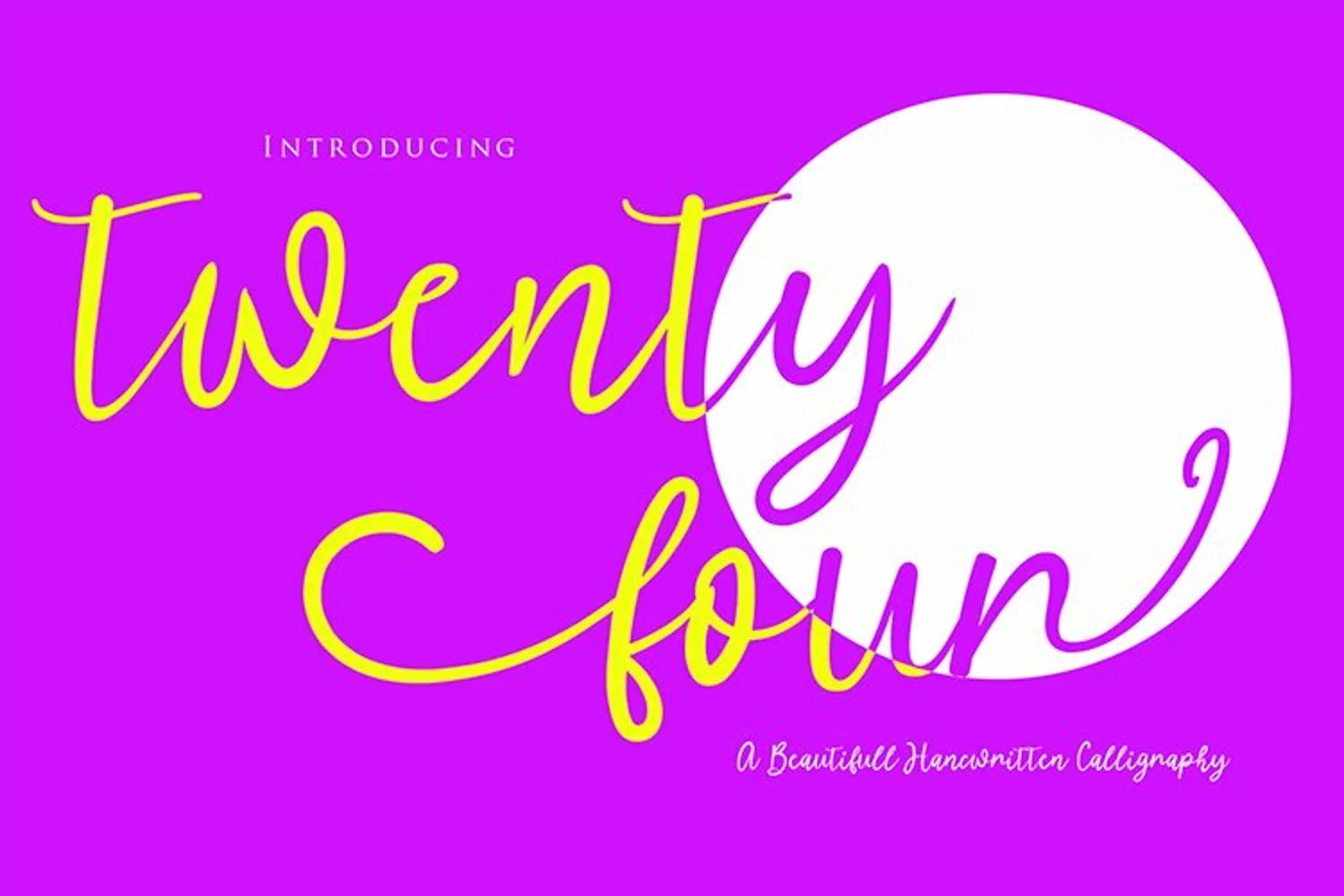
Twenty Four is a simple modern calligraphy font, with curves and lines are so soft that makes this font look pretty and realistic.
Perfect to all your design project, like invitation card, product logo, food brand logo and much more.
Twenty Four also supported with extra character that included in : stylistic set 01-03
that will help you get beautiful style with your own creation.